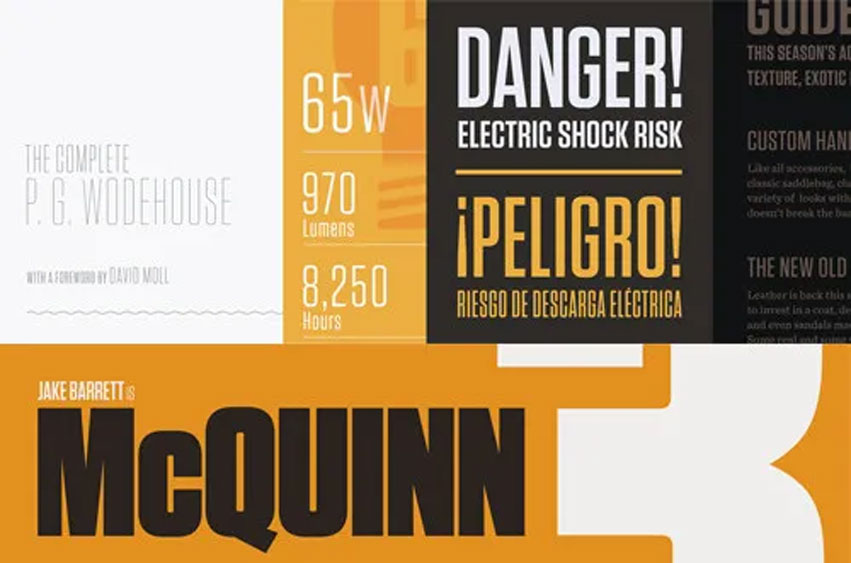
Tungsten Family Font
Tungsten Family Font is a compact and sporty sans serif that’s disarming instead of pushy — not just loud, but persuasive.Flat-sided sans serifs have been a vital part of graphic design since its very beginning. Like many of typography’s loveliest styles, these letters are an import from sign painting, where the style — doubtless because its kit of lines and curves resembles plumbing — is colorfully known as “Modern Gaspipe.”
These modular letters were an important part of the twentieth century poster, bright and optimistic in the propaganda of the Works Progress Administration (WPA), and peremptory in the Constructivism of the young USSR. In the service of any agenda, what these letters always signified was modernity, industry, and zeal.It was an unusual design brief for ourselves, completely without visual cues, instead trading in cultural associations: “more Steve McQueen than Steven Seagal,” reads one note; “whiskey highball, not a martini” suggests another.
We decided to reduce the letterforms not to circles and squares, but to a manageable set of stated interrelationships — between inside and outside, uppercase and lowercase, and one letter and the next — that could be applied with equal consistency throughout the design. The result is Tungsten, a family of high-impact fonts that doesn’t sacrifice wit, versatility, or style.